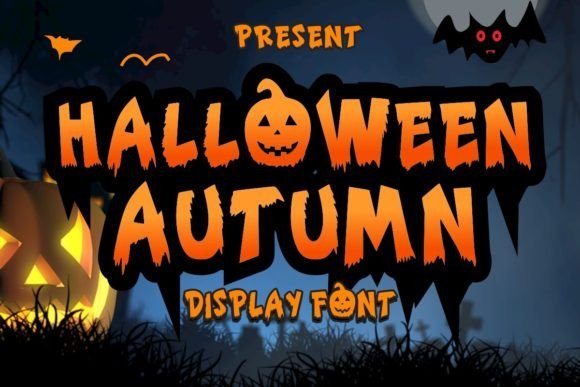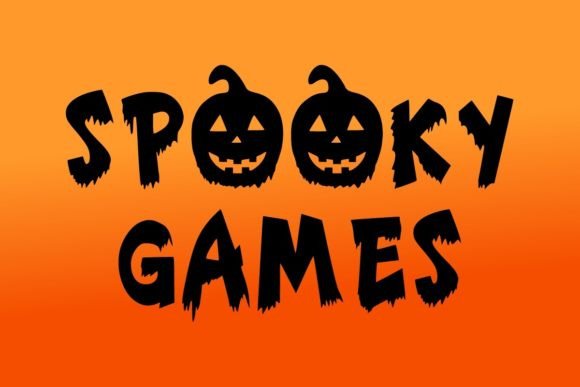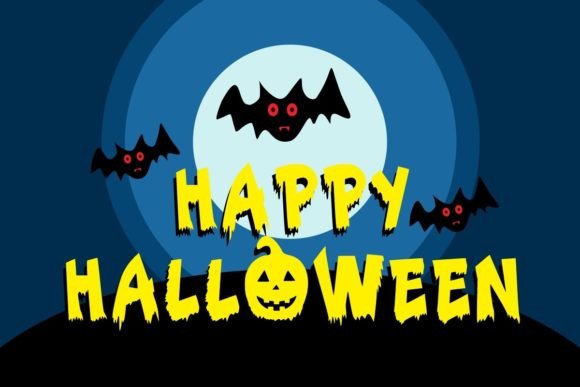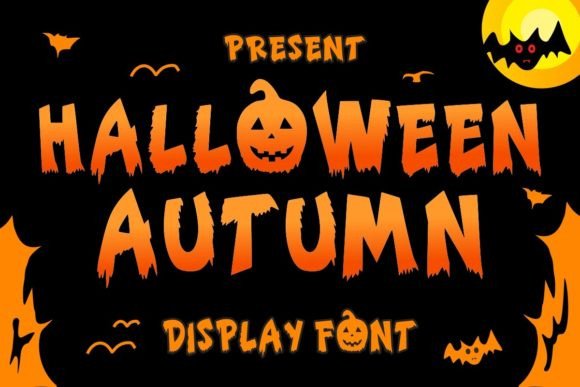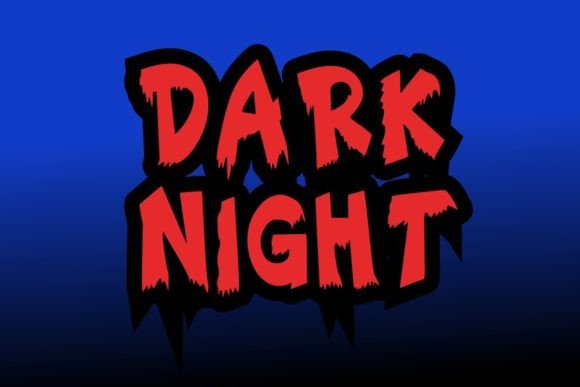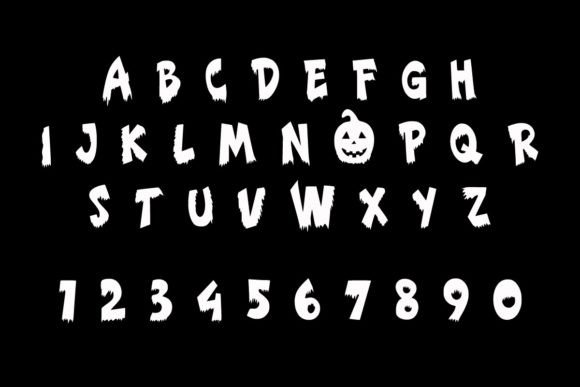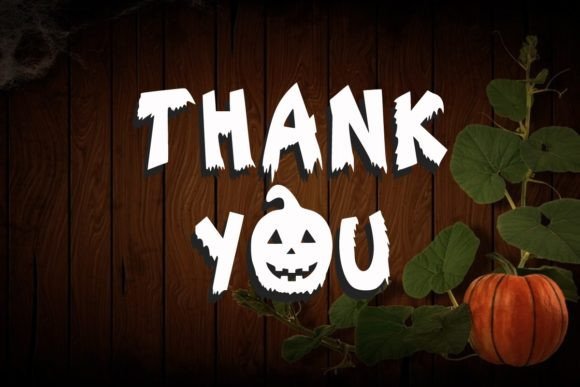
A Font for the Frightful Season
As the leaves begin to fall and the nights grow darker, I find myself itching to unleash my creative side. There’s something about the eerie atmosphere of autumn that sparks a sense of excitement and possibility. Whether it’s crafting a spooky tale or designing a haunting logo, I know I need the right tools to bring my vision to life.
That’s where the Halloween Autumn Font comes in – a fun and scary display font that’s perfect for any project that screams (pun intended) of the Halloween spirit. From blog posts to logos, branding to invitations, this versatile font is the ultimate companion for designers looking to add a touch of macabre to their work. And let’s be honest, who wouldn’t want to tap into the magic of the Halloween season with a font that’s equal parts spooky and stylish?
- Unique Characteristics: The font features intricate, hand-drawn designs with autumnal and Halloween-themed elements, including leaves, pumpkins, and spider webs
Halloween Autumn Font Review
As a designer, I was excited to dive into the “Halloween Autumn Font” to see if it lived up to its spooky promise. Here’s my honest review.
- The font’s unique blend of gothic and autumnal elements is a great starting point for any Halloween-themed project.
- The font’s weight and style options provide a lot of flexibility for different design scenarios.
- The font’s overall aesthetic is cohesive and well-designed, making it easy to incorporate into various designs.
- The font’s limited character set may make it difficult to use for more extensive projects, such as books or long-form content.
- The font’s style, while unique, may not be to everyone’s taste, which could limit its appeal in certain design contexts.
Overall, I think the “Halloween Autumn Font” is a solid choice for designers looking to add a touch of spooky flair to their projects. While it may have some limitations, its unique style and flexibility make it a great option for Halloween-themed designs.
For a more dramatic effect, pair the font with autumn-themed graphics and colors.
For a more eerie effect, use the font in combination with Halloween-themed graphics and textures.
For a more seasonal effect, pair the font with autumn-themed graphics and colors.
The Halloween Autumn Font is perfect for creating invitations, posters, and social media graphics for Halloween and autumn-themed events.
It’s also great for adding a spooky touch to your blog posts, articles, and website content.